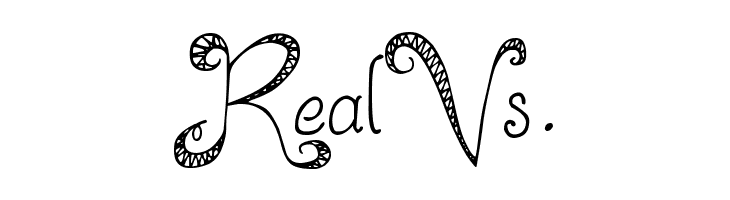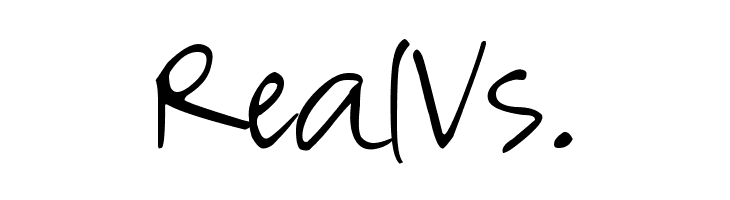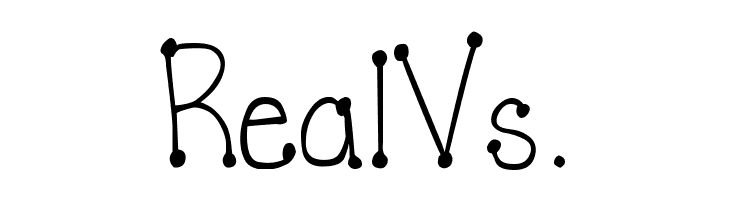
• DJB Gimme Space
A playful, handwritten font with whimsical character details.
• DJB Gonna Share My Story
• DJB Got No Time For That
A playful, handwritten font with a casual and creative vibe.
• DJB Hand Penned Font
A playful, outlined handwritten font with a casual vibe.
• DJB Hand Stitched Alpha
A hand-stitched, embroidery-style font with a playful and crafty appearance.
• DJB HappilyEverAfter
A whimsical, hand-drawn font with decorative uppercase letters and playful lowercase characters.
• DJB Heart Attack
A playful handwritten font with heart-themed decorations on each character.
• DJB Heart Attack 2
A playful handwritten font with heart motifs and a whimsical, friendly style.
• DJB Heart of Dixi
A playful, handwritten font with a casual and friendly vibe.
• DJB HeatherG
A playful, handwritten-style font with a casual and dynamic appearance.
• DJB Holly Berry Wonderland
A whimsical, decorative font with playful curls and loops.
• DJB Holly Enchanted
A whimsical and enchanting font with curly, decorative elements.
• DJB Holly Jolly
A playful, whimsical font with geometric and hand-drawn elements, perfect for festive designs.
• DJB HOLLY JOLLY B'GOLLY
A whimsical and playful font with bold and thin strokes, perfect for festive designs.
• DJB Holly Serif
A playful, handwritten-style font with a whimsical and informal design.
• DJB Holly Serif Bold
A playful, bold serif font with rounded edges and consistent stroke width.
• DJB Holly Typed
A playful, handwritten style with rounded edges and casual flow.
• DJB Holly Typed 2 Much
A playful, hand-drawn font with a whimsical and casual style.
• DJB How Cute Am I
A playful handwritten font with a casual, friendly appearance.
• DJB Hunky Chunk Bold
A bold, playful font with rounded, chunky letters and a whimsical style.